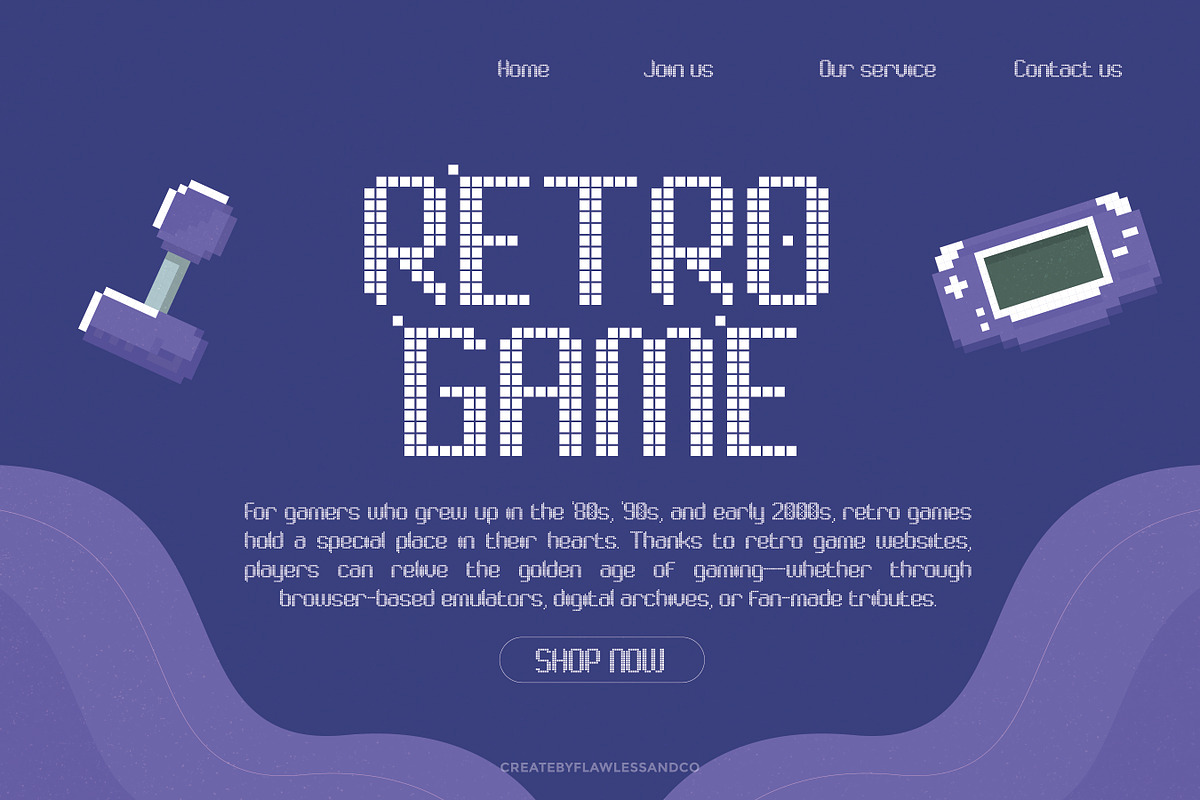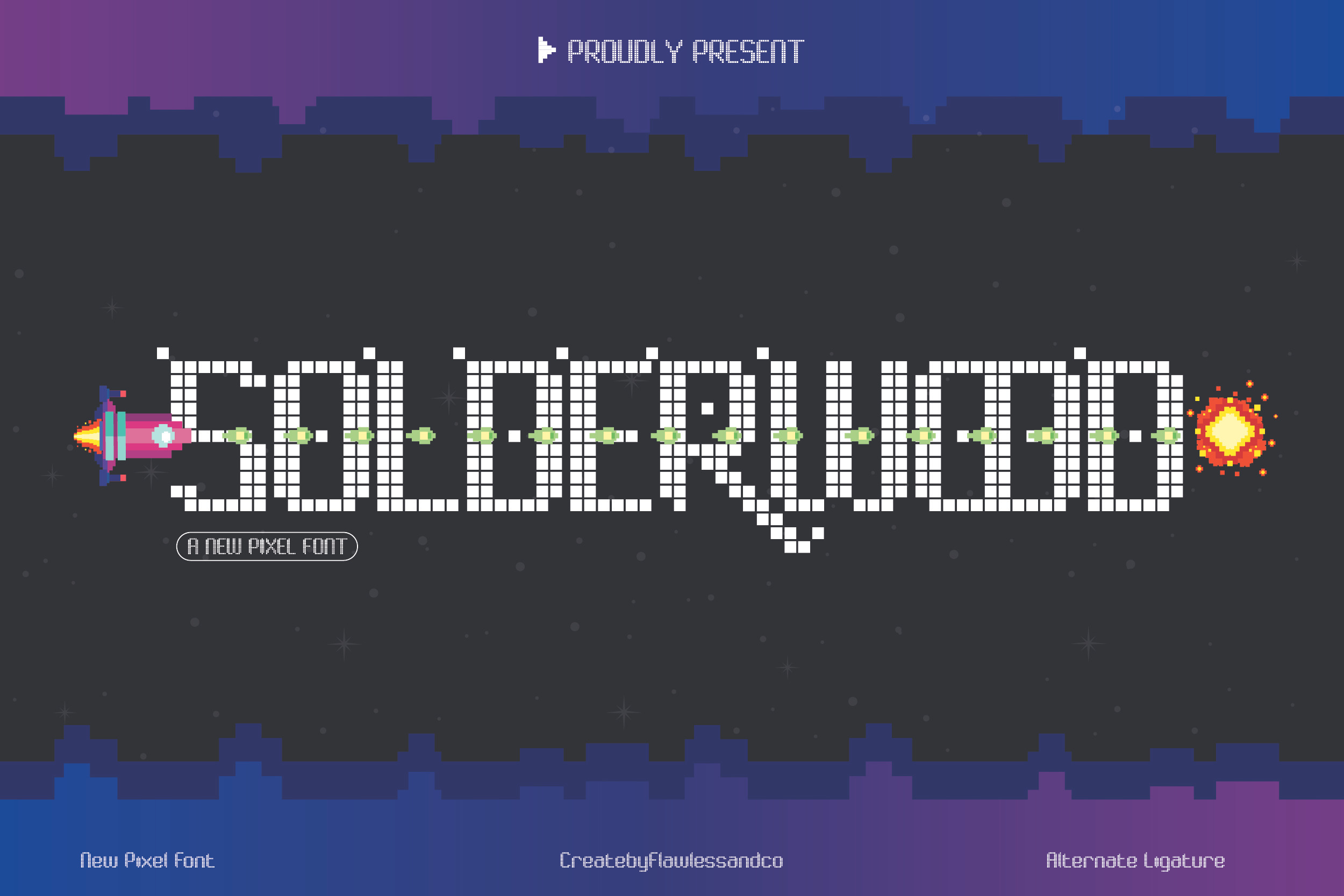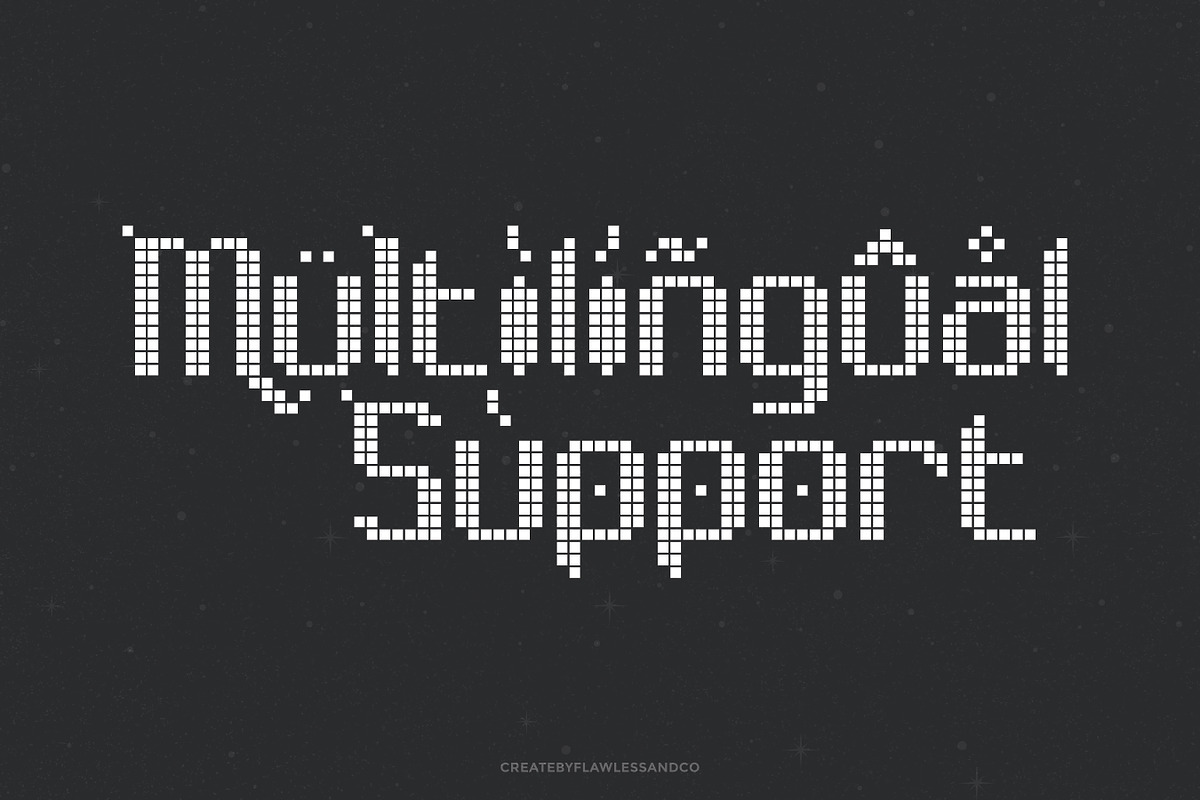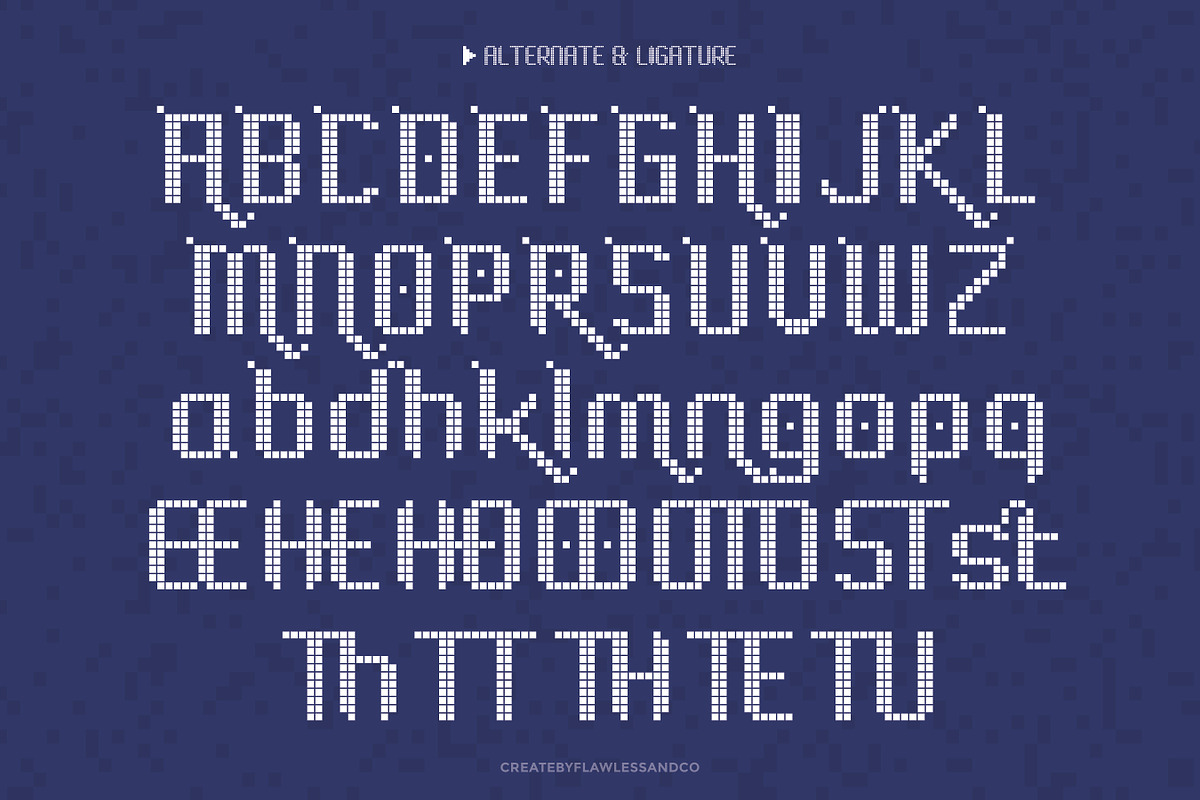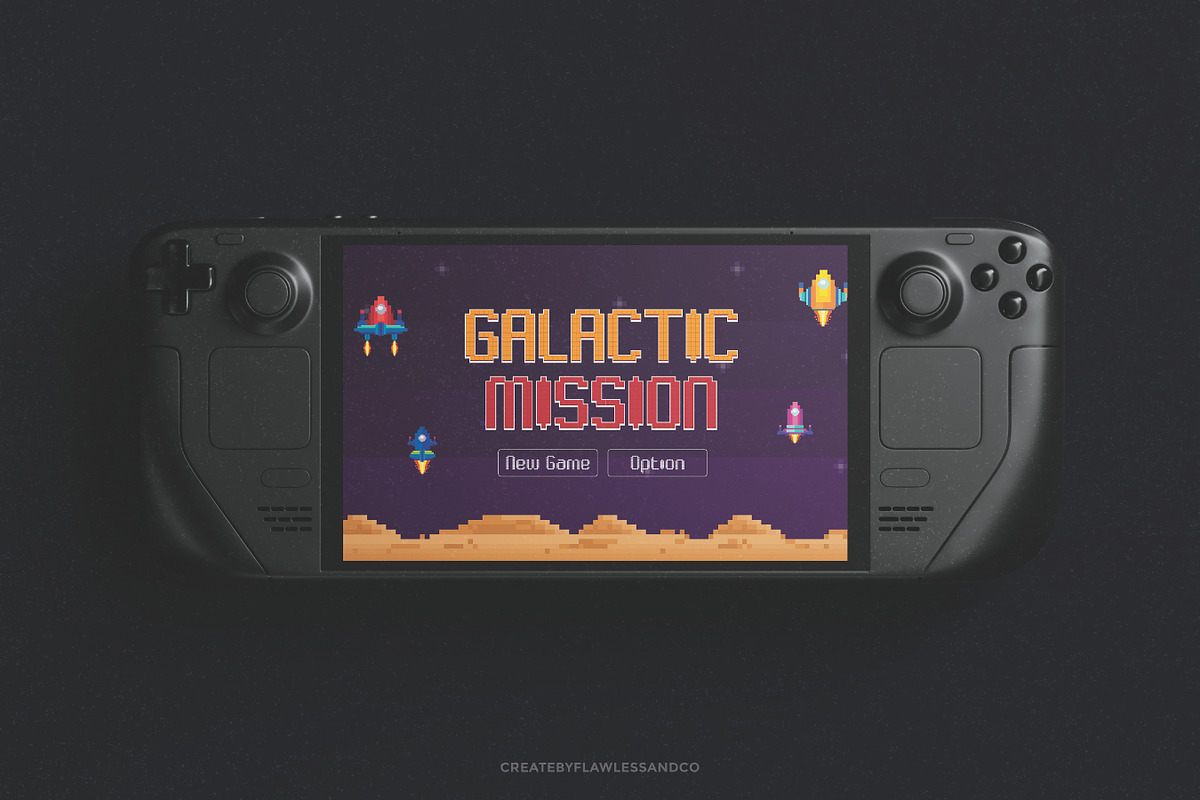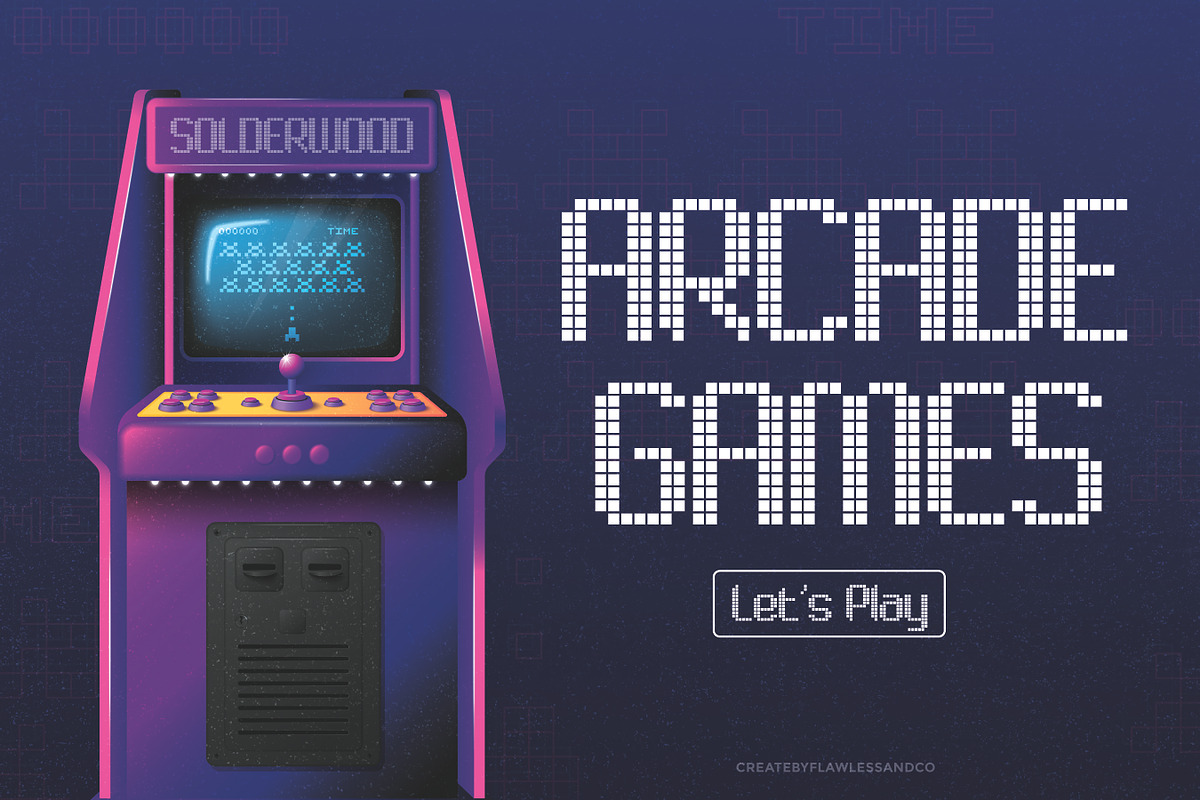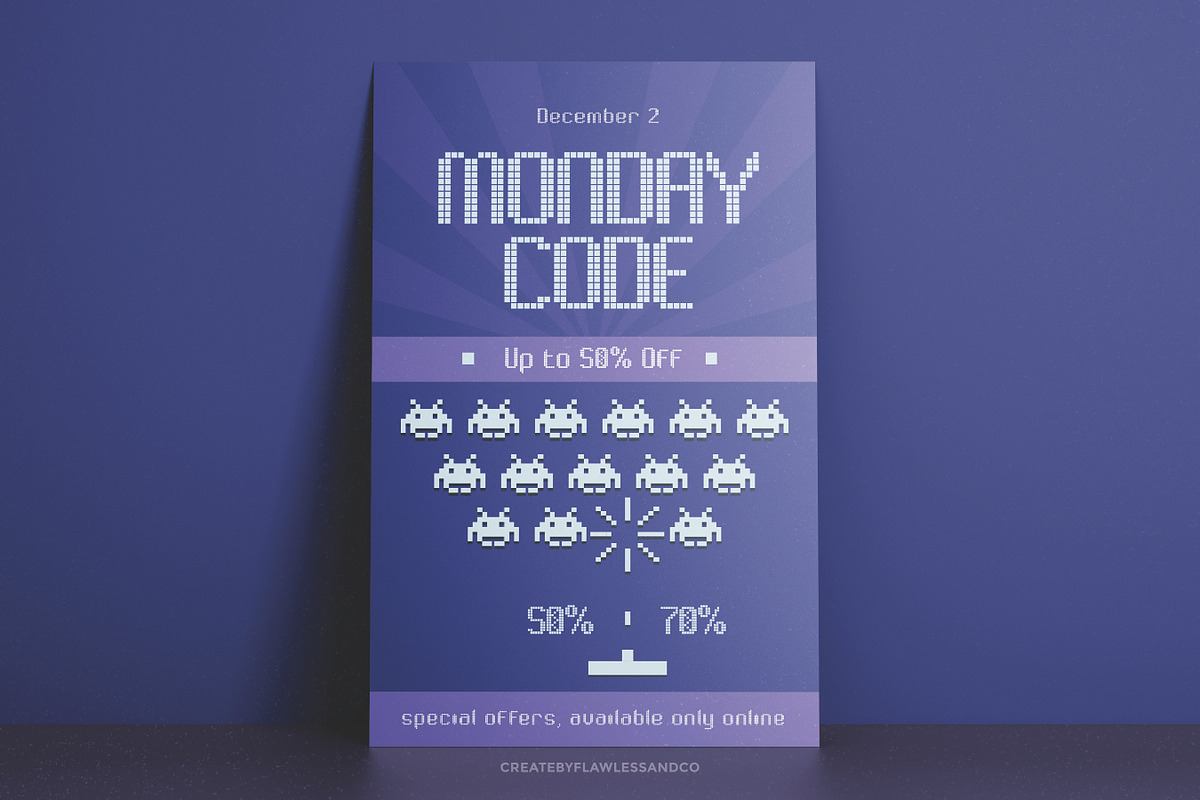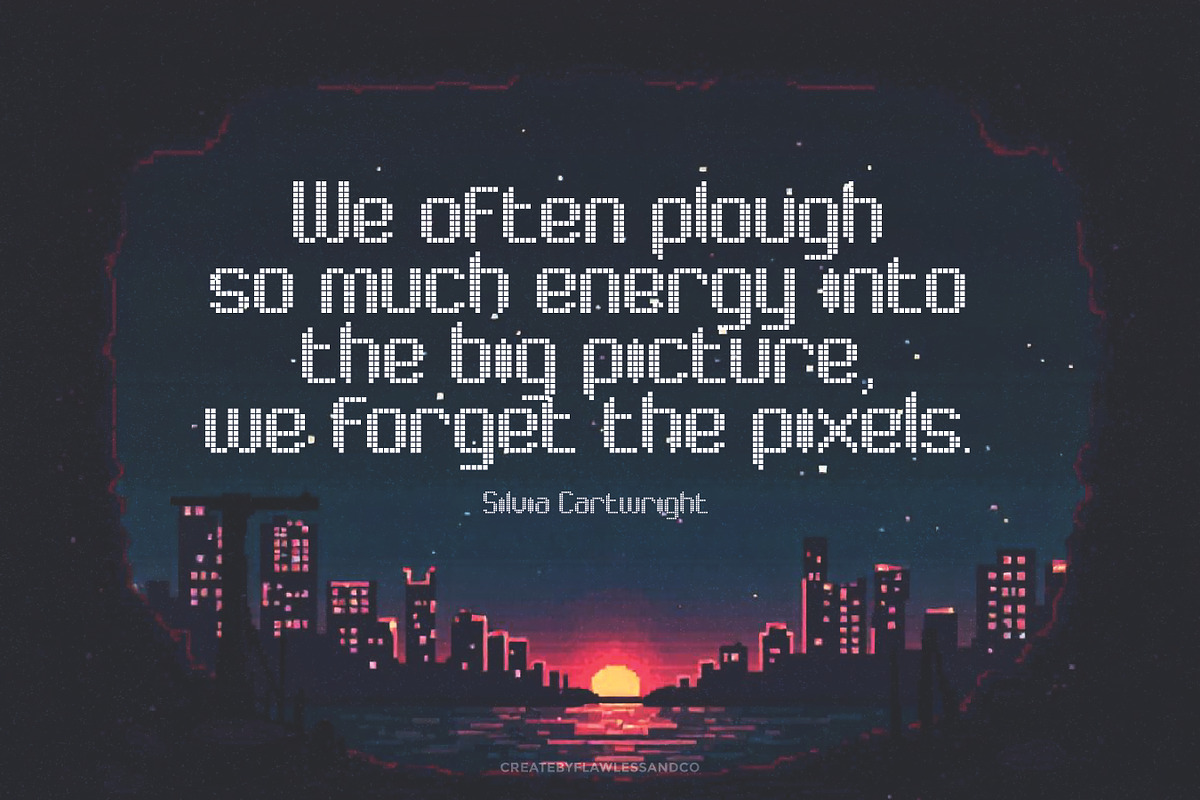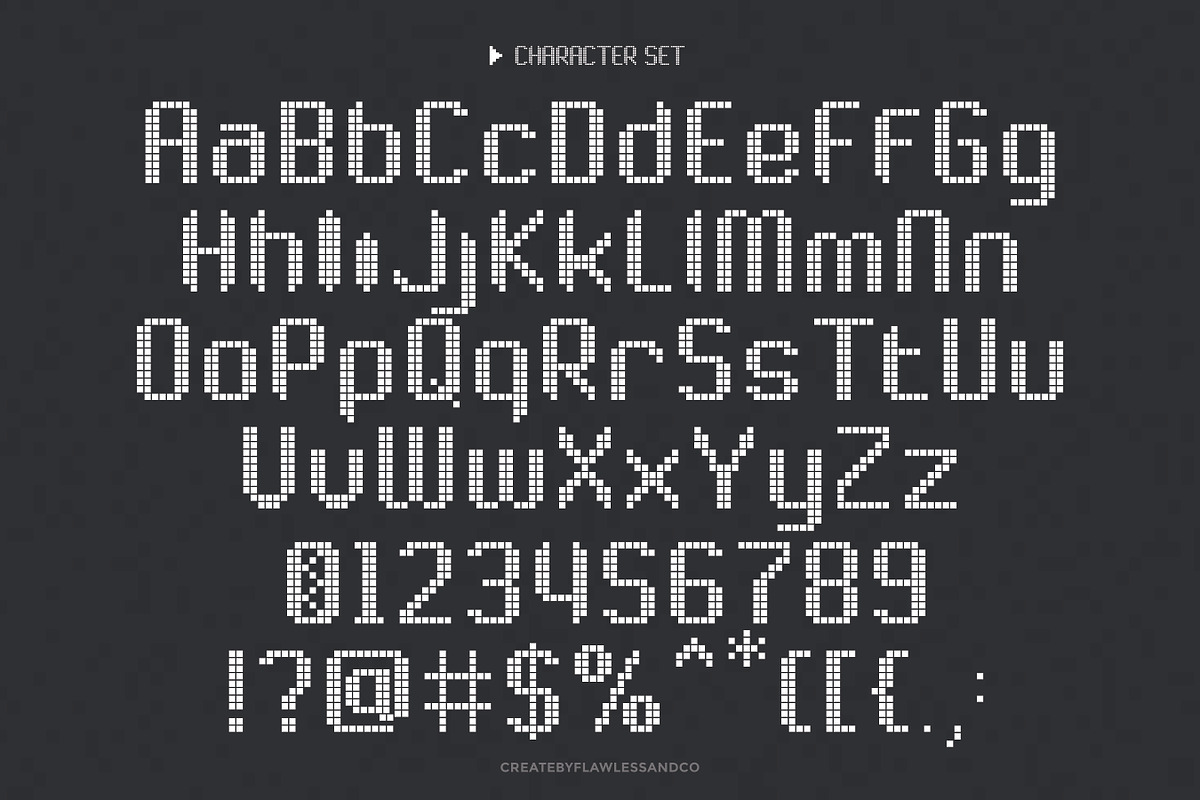
Solderwood - Display Pixel Font
Solderwood – Retro Pixel Display Font
Solderwood is a bold and nostalgic pixel font that captures the charm of classic arcade games and vintage computing. With its blocky, grid-based structure and unmistakable 8-bit style, Solderwood brings retro tech aesthetics to life—perfect for designs that crave a digital, old-school touch. Whether you're creating game titles, pixel-themed branding, YouTube thumbnails, or event posters, Solderwood delivers sharp, clean letterforms that stay true to the golden era of gaming. Every character is carefully crafted to ensure readability while maintaining an authentic pixel-art look, making it ideal for both screen and print.
This font doesn't just hint at the past—it celebrates it. Solderwood gives designers the tools to build visuals that feel fun, nostalgic, and full of character.
- All Caps Font
- Classic Pixel Grid Style
- Perfect for Retro Gaming & Tech Designs
Add a digital spark to your creative projects with Solderwood—a must-have pixel font for every retro-inspired design.
Who Should Use solderwood
Solderwood is the perfect choice for designers, game creators, indie developers, and anyone looking to bring a retro vibe to their visual projects. Whether you're working on pixel art themes, vintage tech-inspired designs, classic game UI, or posters with an 80s arcade touch, Solderwood delivers the look you need. It’s also great for branding that wants to stand out with a unique and nostalgic digital-era feel.
A Must-Have Font for game Creators and Designers
Solderwood is a must-have font for game creators and designers who want to inject a strong sense of retro energy into their projects. With its pixelated structure and nostalgic charm, Solderwood captures the essence of classic arcade aesthetics while staying versatile enough for modern game interfaces, in-game text, splash screens, and promotional assets. If you're crafting a world that feels digital, pixelated, or playfully nostalgic, this font belongs in your toolbox.
Why Choose Solderwood for game Projects?
Choosing Solderwood for your game projects means bringing the spirit of retro gaming to life with style and precision. Its bold pixelated design instantly evokes the charm of vintage arcade screens, making it perfect for titles, menus, scores, and UI elements that need to feel nostalgic yet fresh. Solderwood also offers alternate ligatures, giving you flexibility to create dynamic text compositions. Whether you're designing an indie platformer, a sci-fi shooter, or a retro-themed app, this font adds authenticity, character, and visual impact to your game.